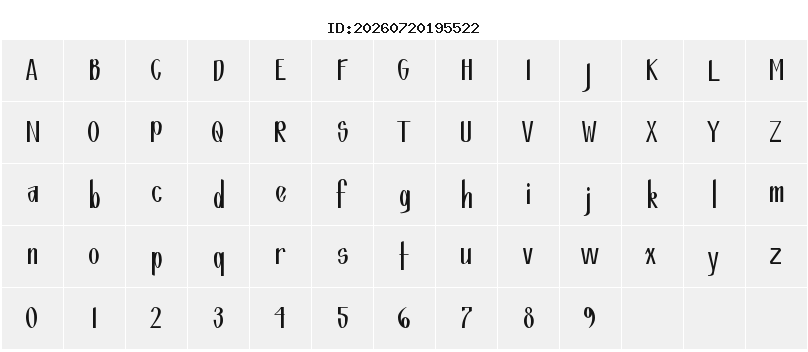
Fountain Preview
• Font Name: Fountain
• Full Font Name: Fountain
About Fountain.ttf
Fountain.ttf is a modern, elegant sans-serif font designed for ultimate readability and visual harmony. Perfect for branding, headlines, web design, and print materials.